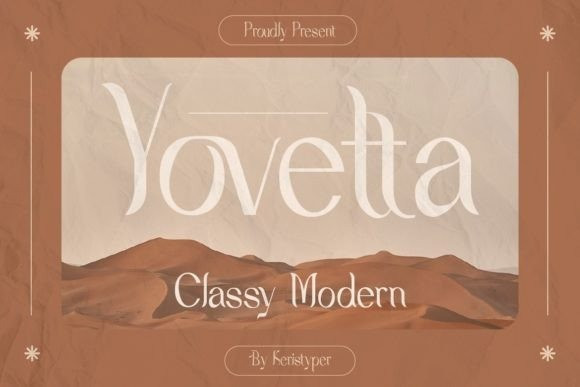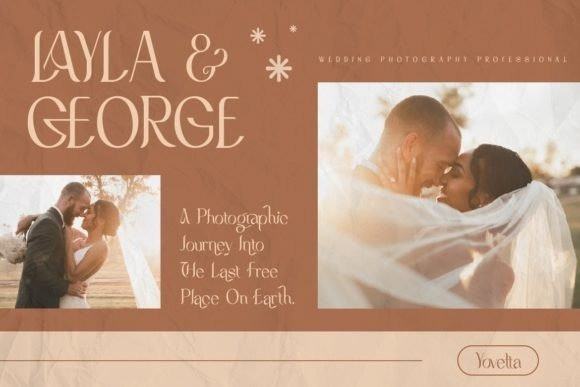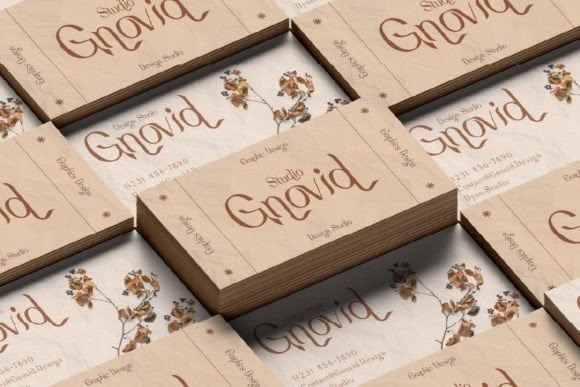
Yovetta Font
Yovetta is an aesthetic sans serif typeface that looks elegant and classy. No matter the topic, this font will be an incredible asset to your fonts’ library, as it has the potential to elevate any creation.